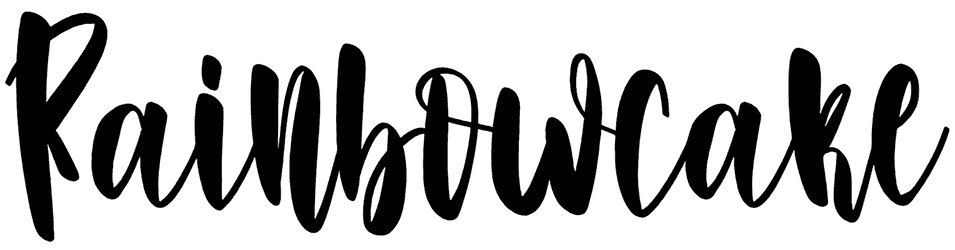
Rainbowcake Font
Introducing Rainbowcake, a funny handwritten font, containing all the characters you need with a compact style, that also looks slightly slanted. It brings a natural touch to your work and makes it distinguished from other projects.
Rainbowcake font might seem unreadable, so consider this feature before downloading, but if you want a casual hand-drawn script, this font will be a good option. You can use it for product packaging, labels, logotypes, advertising materials, homeware designs, and much more.